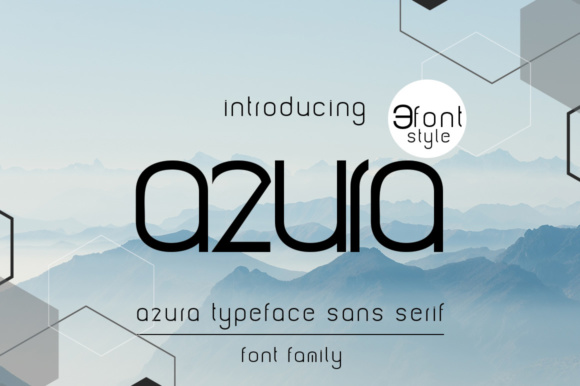
The Azura Font: A Designer’s New Best Friend?
I’ll never forget the time I was working on a poster design project for a local music festival. I had a clear vision of what I wanted to create, but somehow, the font just wasn’t cooperating. I must have tried a dozen different fonts, but none of them seemed to fit the vibe I was going for. That’s when I stumbled upon the Azura font. It was like a breath of fresh air! The clean lines, the modern feel, and the versatility of this sans serif family won me over instantly.
Azura Font: The Basics
Azura is a sans serif family that comes in three variations: regular, scary, and zeb. This font is perfect for designers, crafters, and creative hobbyists who want to add a touch of modernity to their work. With its good readability, Azura is ideal for posters, large-scale artwork, and any project where you want to make a statement.
Honest Review: What I Love and What I Don’t
• ✅ Clean and modern design
• ✅ Highly readable, even at large sizes
• ✅ Versatile, with three distinct variations (regular, scary, and zeb)
• ✅ Perfect for posters, large-scale artwork, and more
• ⚠️ Limited use of OpenType features (but still a great font for beginners!)
• ⚠️ Some users may find the “scary” variation a bit too bold or overpowering
The Story Behind Azura
According to the font’s creators, Azura was inspired by the urban landscapes of modern cities. They wanted to create a font that was both clean and modern, yet approachable and friendly. The result is a font that’s perfect for designers who want to add a touch of sophistication to their work.
Q: What is the Azura font family?
A: The Azura font family is a sans serif family that comes in three variations: regular, scary, and zeb.
Q: Is Azura suitable for large-scale artwork?
A: Yes, Azura has good readability, making it perfect for posters, large-scale artwork, and more.
Q: Is Azura easy to read?
A: Yes, Azura has a clean and modern design that makes it easy to read, even at large sizes.